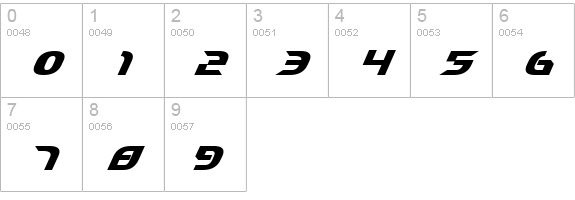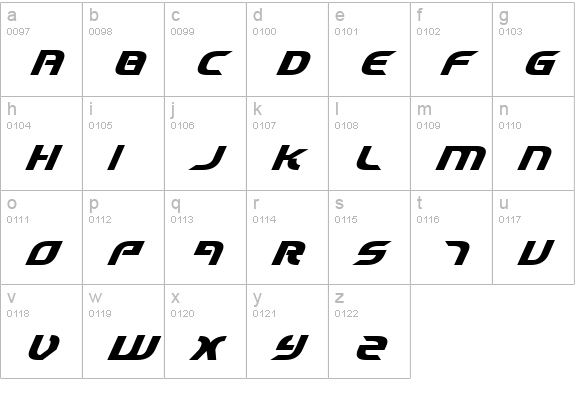
Starfighter Cadet Bold Italic is a strong, high-contrast, italic variant in the Starfighter typeface family \xE2\x80\x94 well suited to headlines, attention-grabbing titles, and strong calls-to-action.
Starfighter Cadet Bold Italic is a dynamic and futuristic font that exudes confidence and modernity. Its sleek lines and bold design make it perfect for projects that require a bold statement. Whether you are creating a sci-fi poster, a tech-themed website, or a space-themed logo, this font will undoubtedly add a touch of sophistication and edginess to your work. The unique blend of boldness and italics in Starfighter Cadet Bold Italic gives it a distinctive and eye-catching appearance, setting it apart from traditional fonts. Its versatility allows it to be used for a wide range of design projects, from branding to editorial design. And the best part? Starfighter Cadet Bold Italic is available for free download at FontsMarket.com. So go ahead, unleash your creativity and elevate your designs with this striking and modern font.